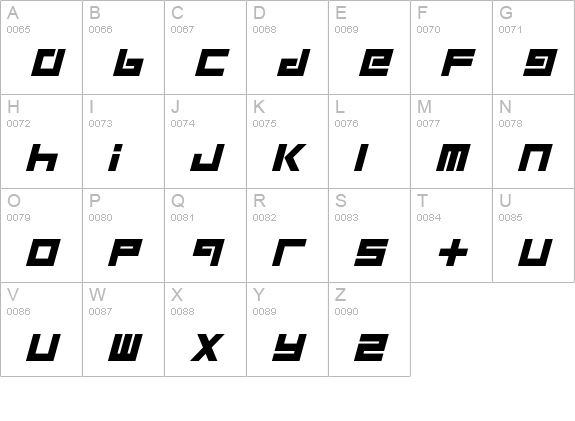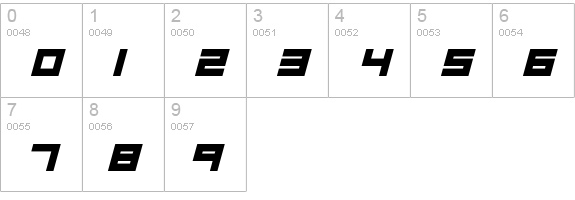
Robot Children Font Details
Robot Children is a free for personal use font in the Modern > Techno category, designed by Darrell Flood. It has been downloaded 38 times and is available for Windows, Mac and Linux.
Robot Children font is a playful and futuristic typeface perfect for adding a touch of whimsy to your projects. Its quirky design combines sleek lines and geometric shapes, creating a fun and modern look. This font is ideal for children's books, posters, branding, and more.